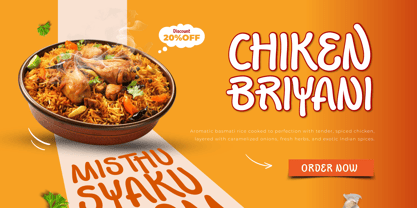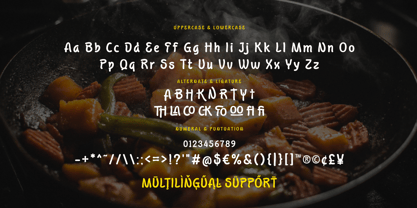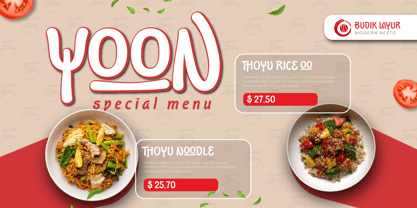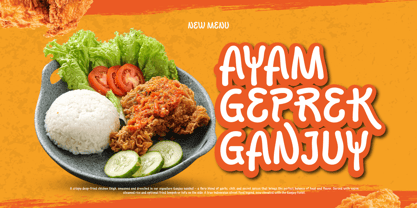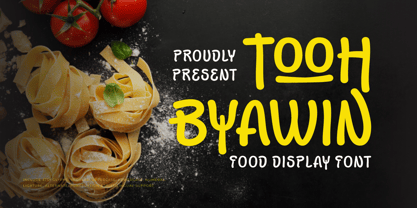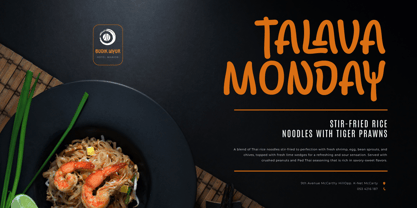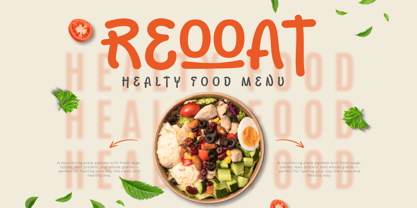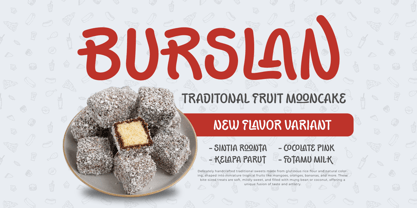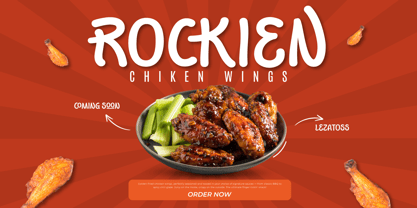
Introducing Tooh Byawin, a deliciously bold and playful display font crafted especially for food branding, packaging, and culinary design projects. With rounded shapes, soft curves, and a hearty character, this font evokes the warmth of comfort food and the joy of shared meals. It’s perfect for snack labels, café menus, street food stalls, or cheerful bakery signage.
Tooh Byawin’s bubbly personality makes it ideal for grabbing attention while staying friendly and fun. Whether you're launching a food truck, designing a logo for a candy brand, or creating content for a cooking blog, this font will add a flavorful touch that’s both inviting and irresistible.
- Fonts include Multilingual: Support for 85 languages.